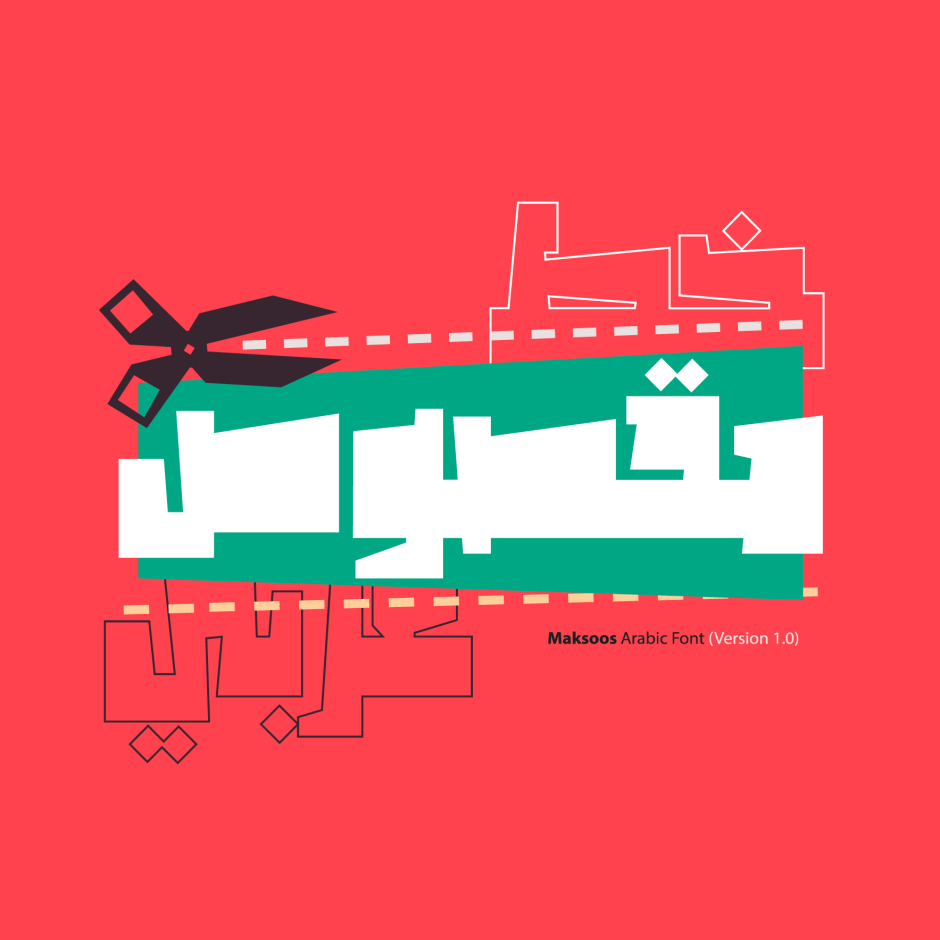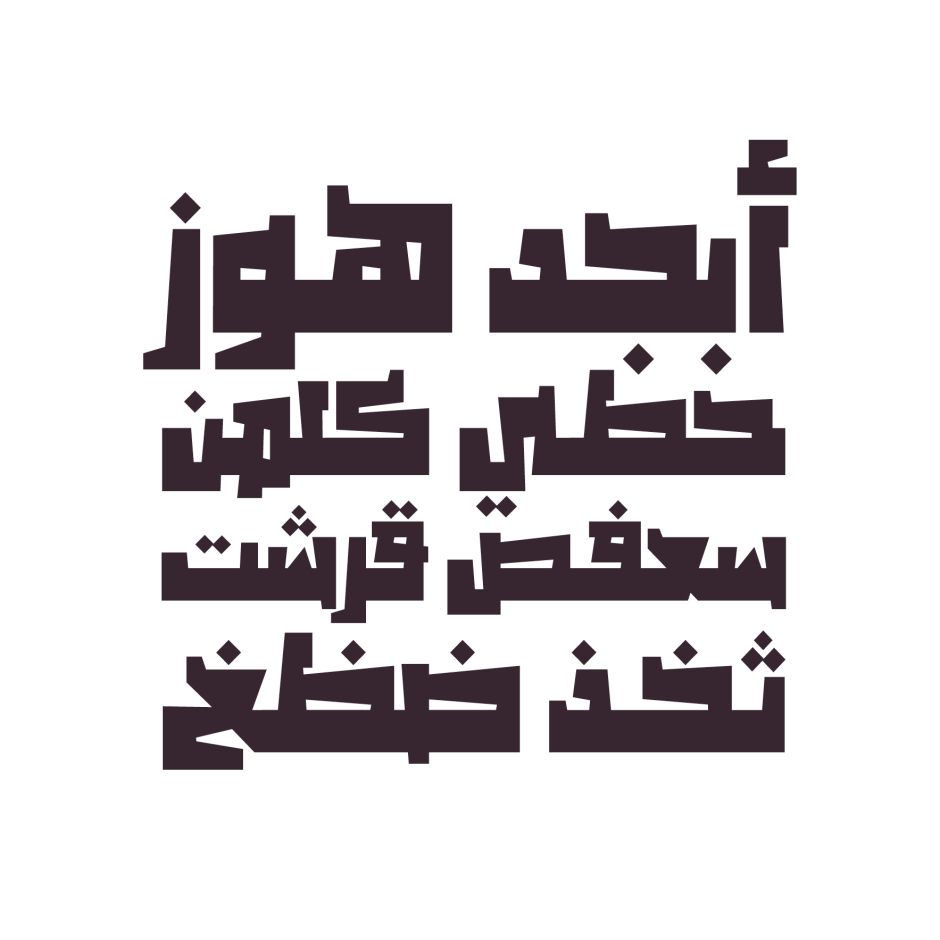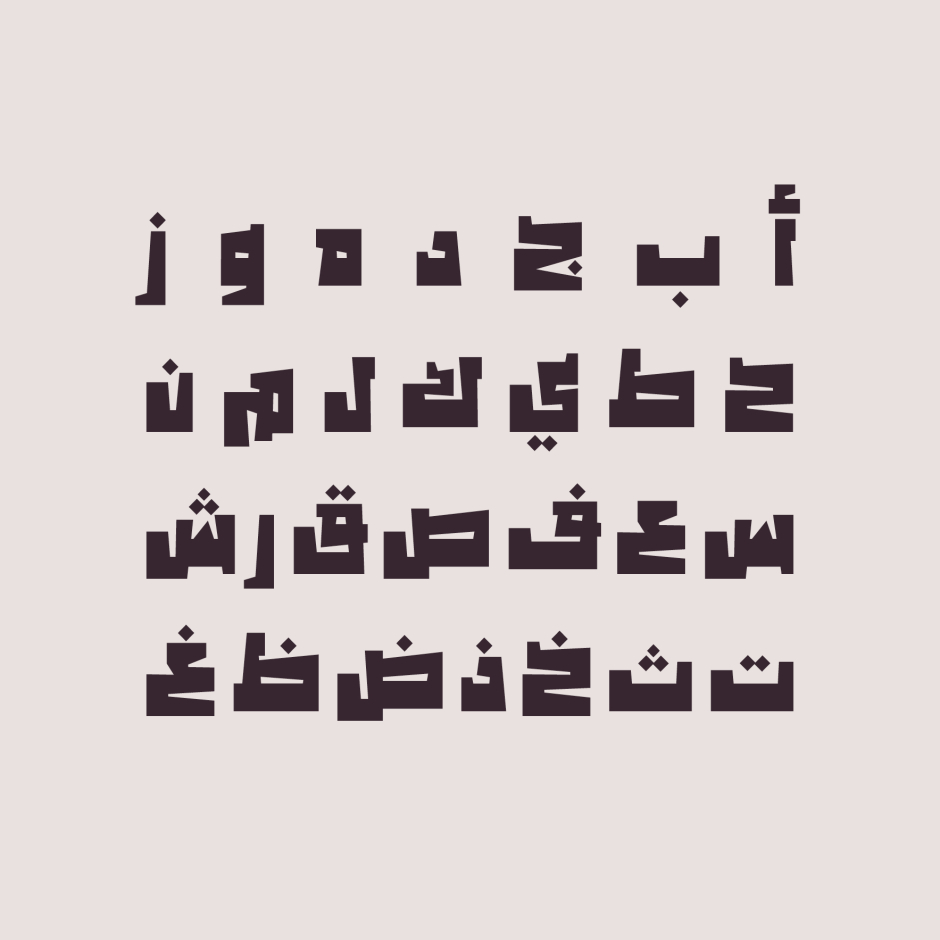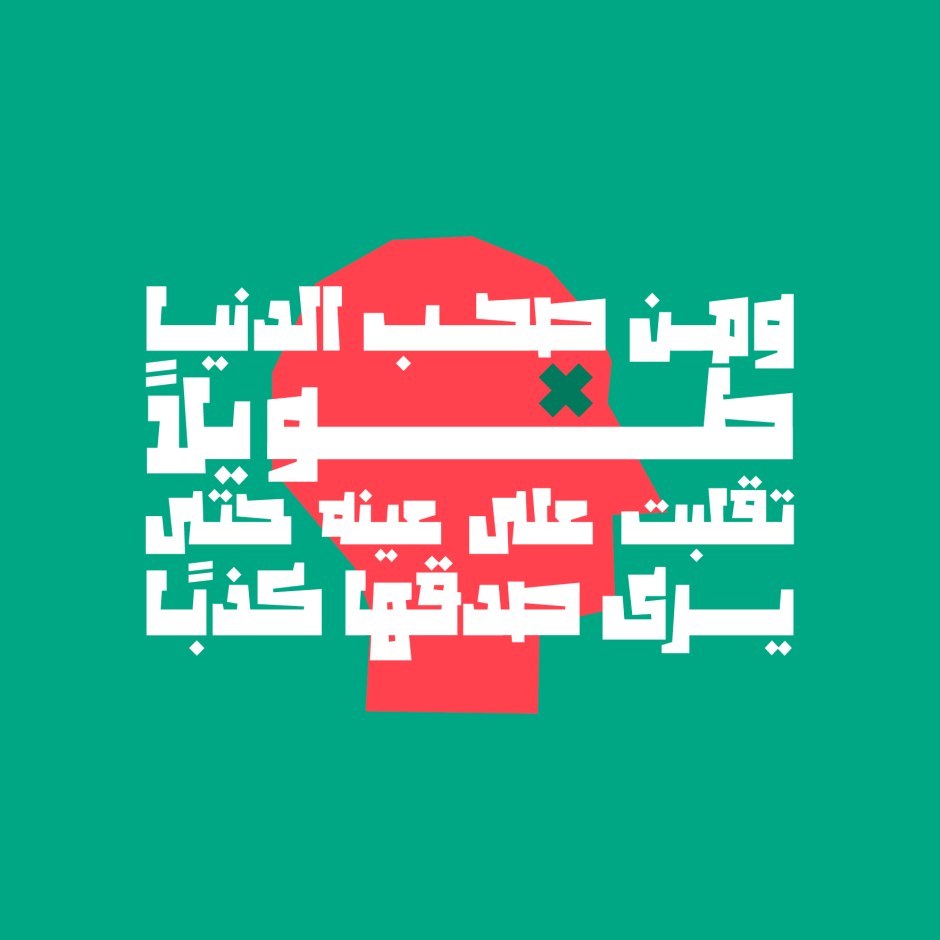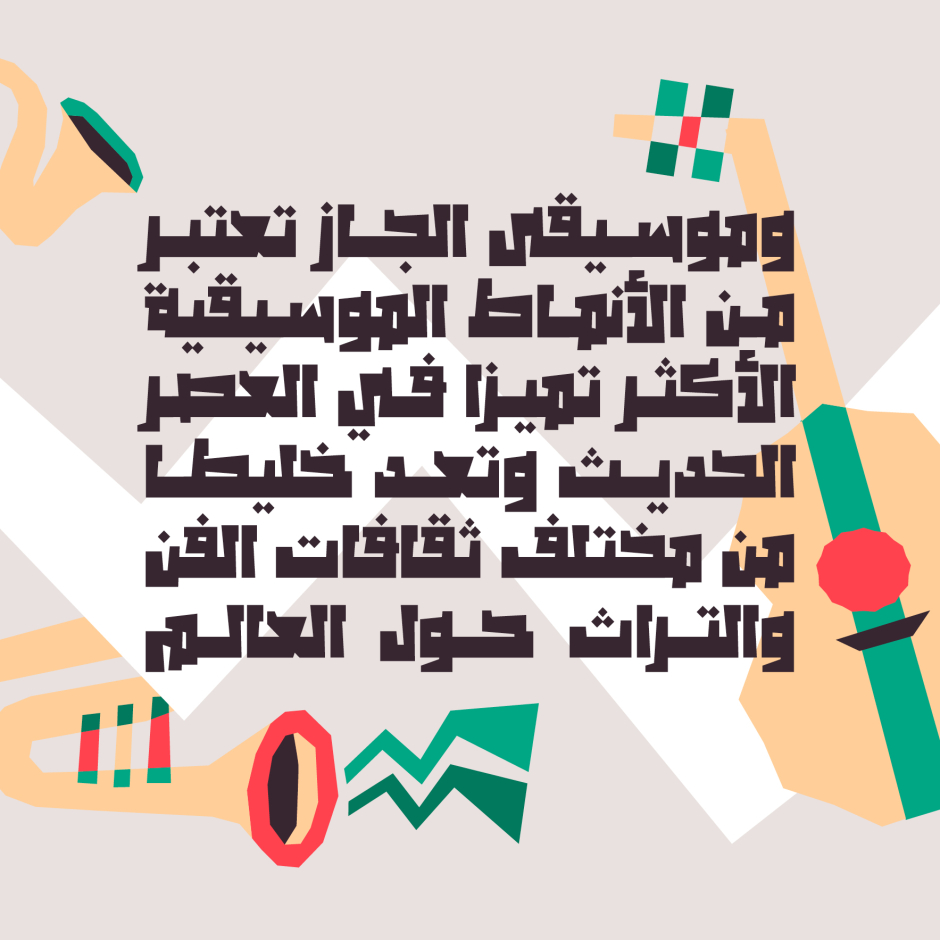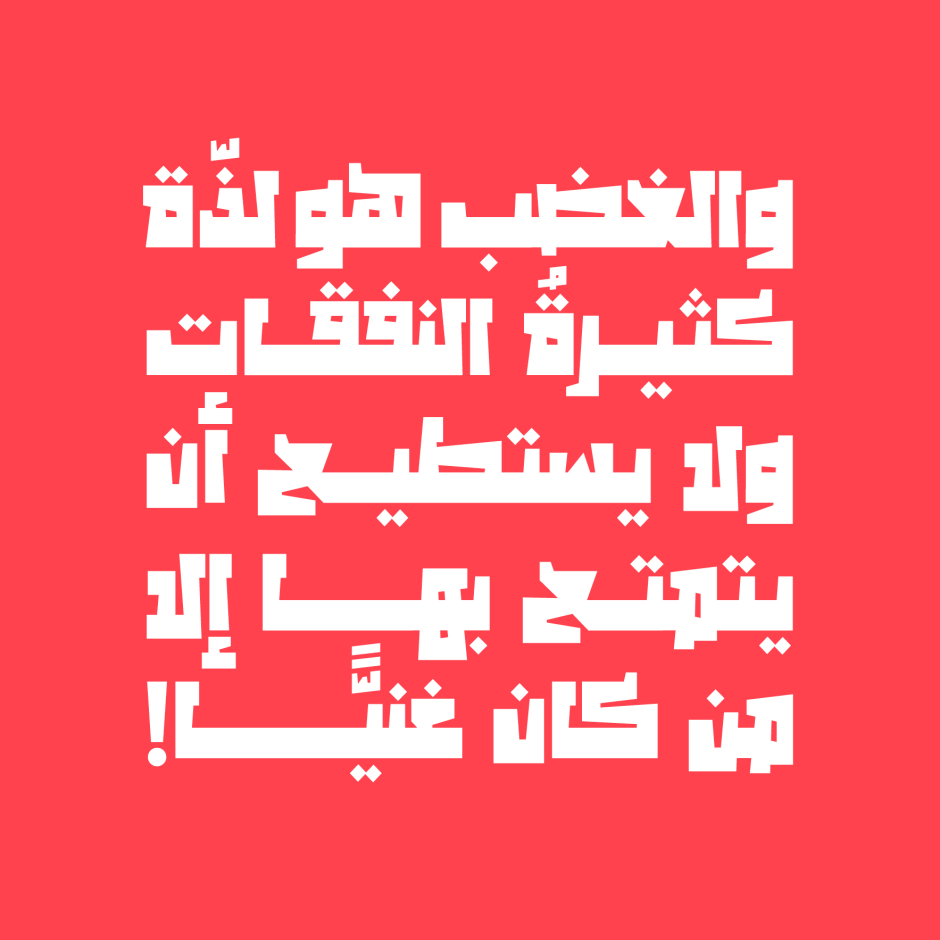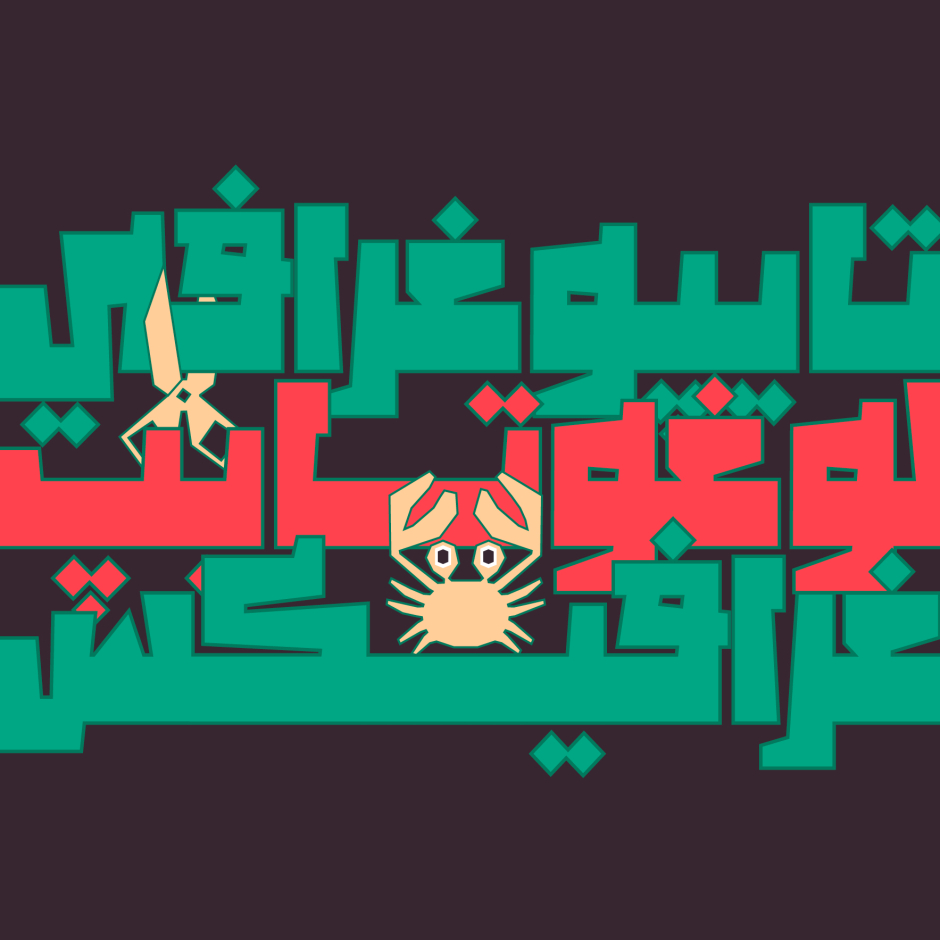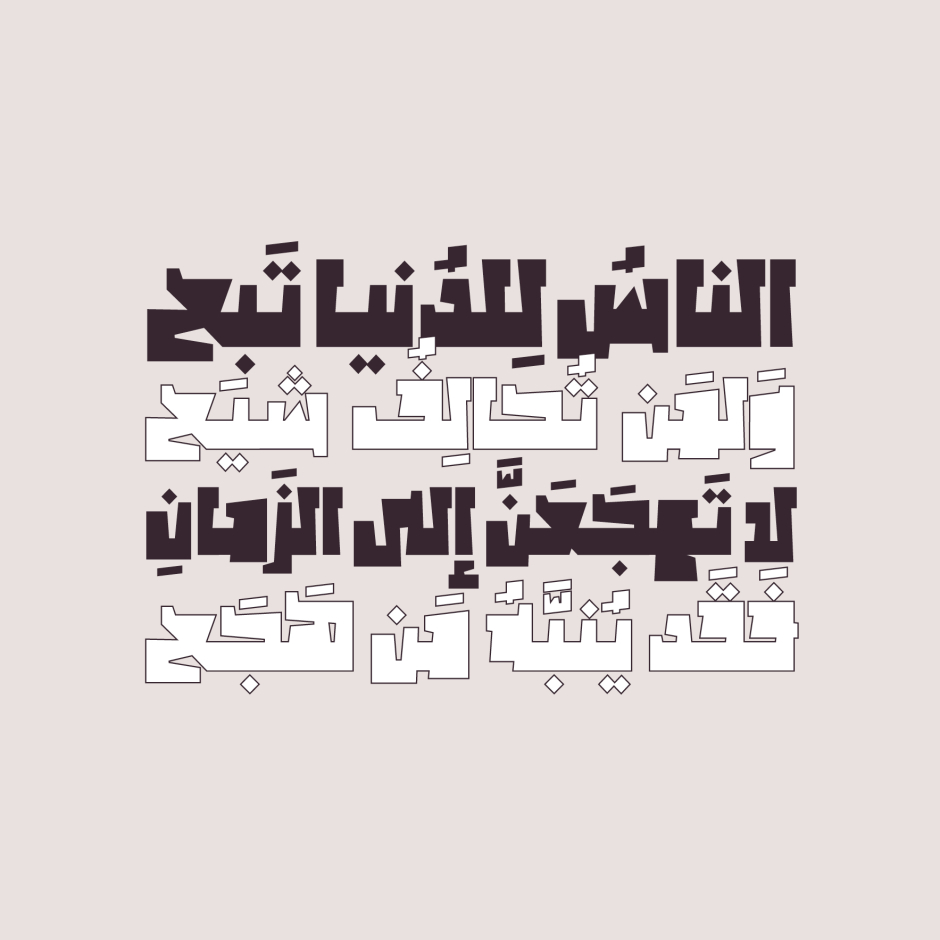
Maksoos
/ Display
Maksoos (the Arabic for 'Scissored') is an Arabic display font that features thick letterform structure, and two styles (Display and Opaque). The font is suitable for edgy design projects including web, print, advertising and branding. Maksoos is compatible with Windows, Mac and mobile applications.